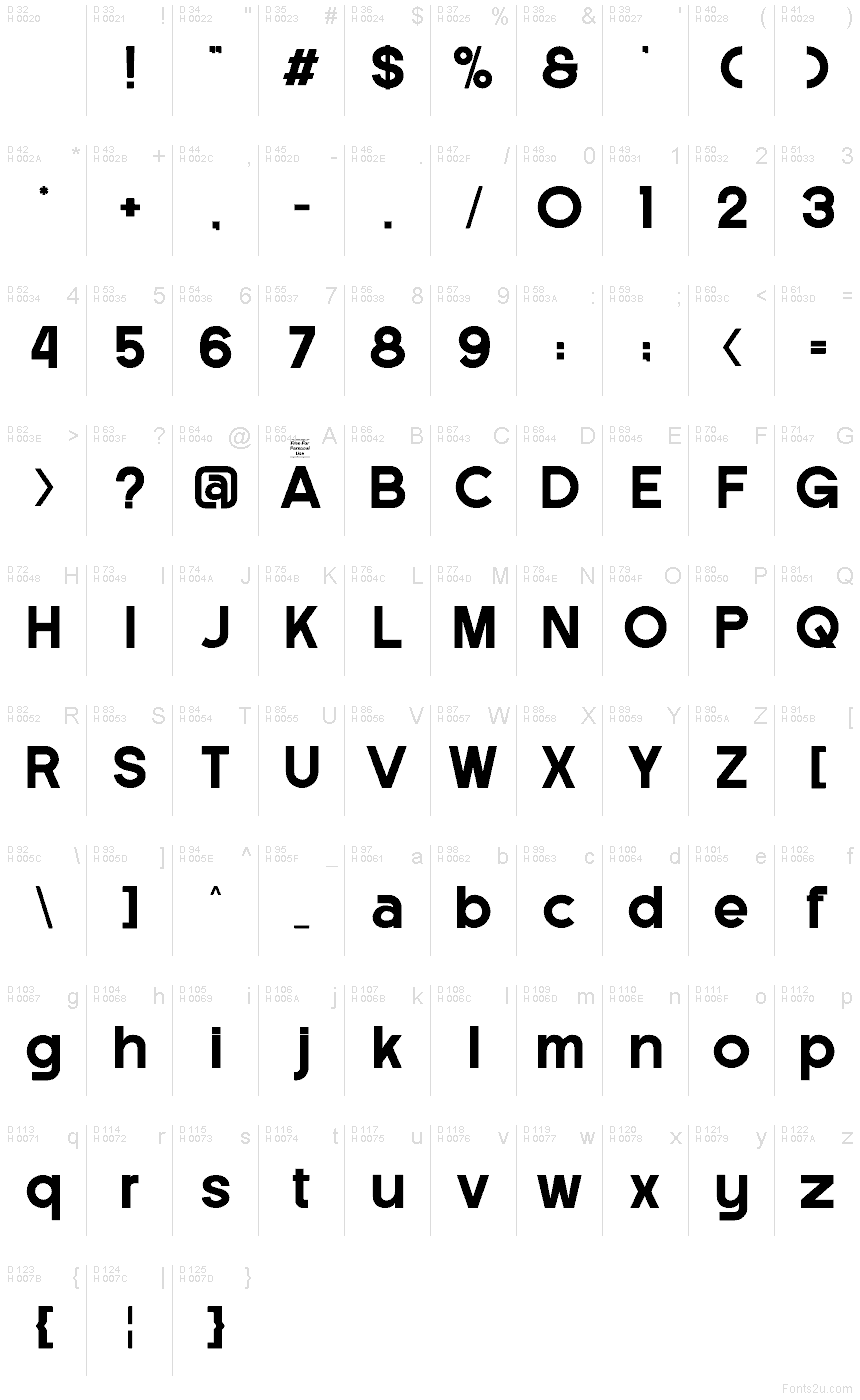
Menor
Menor font by Ermedia Studio is a free geometric sans serif display font. It stands out with a striking mix of razor-edged verticals and soft, rounded bowls—the M hits like a chisel, while the o and e feel plush and weighty. Tight spacing and generous counters give Menor a punchy rhythm that reads loud and clean at a glance, making short words look iconic and compact lines feel balanced.
Using Menor, headlines snap, logos feel intentional, and posters, packaging, app splash screens, event flyers, and social banners all gain instant presence. This free font thrives at large sizes where its chunky forms and smooth curves can breathe. Pair it with a light grotesk for body text, or add a touch of tracking when you need extra clarity over busy backgrounds.